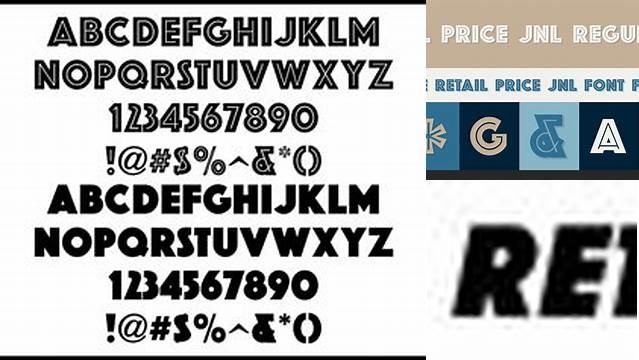
JNL Solid Font: Get Your Free Retail-Ready Design Now!
Hey guys, are you ready to dive into the world of typography and design? We're talking about the JNL Solid Free Font, a fantastic resource for anyone looking to create stunning visuals, especially in a retail context. This guide will break down everything you need to know about this awesome font, from its features and uses to how you can get your hands on it for free. Let's get started and unlock the potential of this versatile font!
H2: Understanding the Basics: What is JNL Solid Font?
So, first things first: what exactly is the JNL Solid Free Font? It's a bold, clean, and highly legible typeface designed to make a statement. Its strong, solid letterforms are perfect for grabbing attention, which is why it's a favorite among designers working on retail projects. Think about those eye-catching signs, posters, and product labels you see in stores – often, a font like JNL Solid is the secret weapon behind their appeal. It's a display font, meaning it's best suited for headlines, titles, and short bursts of text rather than long paragraphs. The beauty of JNL Solid lies in its simplicity; the design is incredibly easy to read, even from a distance. This is crucial in a retail environment, where you need to communicate clearly and quickly. Unlike more ornate fonts, JNL Solid doesn't require much effort to understand, allowing your audience to focus on your message. The use of a strong, solid font ensures the message is the first thing people see. The clarity it offers is a key aspect of its appeal, making it an ideal choice for situations where visual impact is key. Whether you're designing a banner ad, a window display, or in-store signage, JNL Solid can effectively convey your message.
One of the most exciting aspects of the JNL Solid Free Font is its versatility. It's not just a pretty face; it's a workhorse. The font can be used across a wide array of design applications. You can create promotional materials, develop branding elements, and even design packaging for your products. This allows you to maintain brand consistency across all customer touchpoints, which is essential for building brand recognition and customer loyalty. The font's adaptability extends to the different design software, making it an easy-to-use option for both experienced designers and beginners. You'll find that it integrates seamlessly into your workflow. In addition, the availability of the font for free also opens the door for small businesses and startups that are looking to make a great impression without breaking the bank. This is a font that is designed to be accessible, empowering you to realize your creative visions without unnecessary cost. You can apply this font in a number of scenarios.
Remember, effective design is all about balance. While JNL Solid is a powerful font, it's important to use it strategically. It can be combined with other fonts for body text to create a balanced and engaging design. In short, the JNL Solid Free Font is an excellent choice for anyone seeking a bold, attention-grabbing font that's also incredibly versatile. It's a valuable asset in any designer's toolkit, helping to create designs that resonate with your target audience.
H2: Key Features and Characteristics of JNL Solid Font
Let's delve a bit deeper into what makes the JNL Solid Free Font such a popular choice. We're going to examine the key features that designers and marketers find so appealing. This font doesn’t just look good; it’s also built with functionality in mind, enhancing the overall user experience. One of the most obvious characteristics of this font is its strong, solid letterforms. Unlike fonts with intricate details, JNL Solid boasts a clean, straightforward design. This simplicity is what makes it so easy to read, even at a distance or in smaller sizes. The font is designed for maximum readability, which is a huge advantage when it comes to retail applications. Think about how quickly someone needs to grasp the information on a poster in a store. The clean letterforms of the font make it effortless for your audience to understand your message. The solid design of this font ensures that the text is not only readable, but also visually striking. This is crucial in a retail environment where visual impact is paramount to get the attention of potential customers.
The font is also designed to be incredibly versatile, making it suitable for a broad array of applications. You're not limited to just one type of project. You can use this font for posters, flyers, website headers, and product labels. This flexibility is a significant advantage, allowing designers to create a consistent brand identity across various platforms. With the JNL Solid Free Font, you can maintain visual cohesion in your designs, whether they’re print or digital. This level of versatility is particularly beneficial for businesses of all sizes. Another notable feature of this font is its availability as a free download. This makes it a particularly attractive option for those who are budget-conscious. This accessibility makes the font an excellent resource for small businesses, startups, and individual designers. Accessing a high-quality font without any financial burden opens up a world of creative possibilities. This font ensures that good design isn't something that comes with a heavy price tag. The JNL Solid Free Font provides a great combination of style, functionality, and accessibility. The ability to create visually appealing designs without any cost is a huge benefit. It's a fantastic option for any designer looking to make an impact.
Finally, this font often comes with a range of weights and styles, allowing for additional design flexibility. This means you can use different versions of the font to create variety in your designs. For example, you might use a bold weight for headlines and a lighter weight for subheadings. This can help you establish a visual hierarchy and guide the reader's eye. Having multiple styles at your disposal allows you to craft designs that are both aesthetically pleasing and functionally effective. The diverse range available allows for variations for different needs. Therefore, the JNL Solid Free Font is an ideal choice for designers looking for a versatile, high-impact, and accessible font. Its features make it an excellent choice for any design.
H2: Best Uses for JNL Solid Font in Retail Design
Alright, let's talk about where the JNL Solid Free Font truly shines – in the realm of retail design. If you're looking to grab attention in a store or create effective marketing materials, this font is a strong contender. Retail design is all about creating an engaging visual experience. The right font can make all the difference in drawing customers in and influencing their purchasing decisions. It's not just about making things look pretty; it's about effective communication. This is where JNL Solid excels. One of the best uses for this font is in creating eye-catching signage. Think about the posters you see in shop windows, the banners hanging from the ceiling, and the signs pointing customers towards specific products. The boldness and clarity of JNL Solid ensure that your message is immediately visible and easily understood. Whether you're advertising a sale, promoting a new product, or simply directing foot traffic, this font is an excellent tool for any business. The JNL Solid Free Font offers high readability, ensuring your message reaches your audience effectively. The clear lines and simple letterforms make it easy for potential customers to understand your message from a distance, even in busy environments. This is a huge advantage in high-traffic areas where you have only a few seconds to capture someone's attention. You can clearly communicate sales information and product promotions, making it a critical tool for sales.
Another great application of the JNL Solid Free Font is in product labeling and packaging. In a retail environment, the appearance of your product is everything. It is very important that your product packaging looks professional. The font can be used to create a consistent brand identity. Use the font to create a cohesive aesthetic that will resonate with customers. Whether you're designing labels for food items, clothing tags, or any other product, JNL Solid helps create a professional and appealing look. With the font, you can maintain a cohesive brand across all products. This consistency builds brand recognition and creates trust with customers. This will provide you with a polished, attractive aesthetic. The design of the font makes it ideally suited for packaging. It's clean and straightforward enough to not distract from the product itself, while still maintaining an effective brand message.
Finally, the JNL Solid Free Font can also be used in digital marketing materials, such as social media posts and website banners. Even though it is a great tool for print designs, it works just as well in digital design. In today's digital age, many people shop online. It’s very important to create engaging visuals that catch your audience's attention. JNL Solid is ideal for this. The bold and clear font makes it the perfect choice for highlighting promotions, announcing sales, and creating visually appealing social media content. Its strong presence makes your content stand out in a feed full of distractions. Overall, the JNL Solid Free Font is an excellent choice for all retail design applications. Its versatility, clarity, and impact make it a powerful tool for creating visually appealing and effective marketing materials.